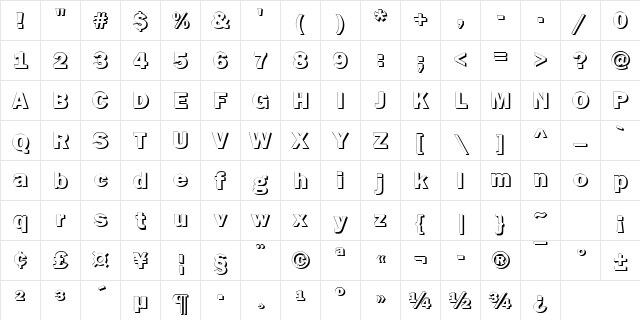
Complete Goffik- Shadow glyph index. Displaying only characters natively supported by Goffik- Shadow font.
Goffik- is built around its visual character rather than neutral utility - its distinctive forms are designed to make an impression at display sizes.
Font Pairing: Pair with a clean neutral sans-serif for body copy to let Goffik-'s character lead without overwhelming the composition.
Pro Tip: Use Goffik- exclusively at display sizes - it was designed to be seen, not read at length. Let a neutral companion handle body copy.